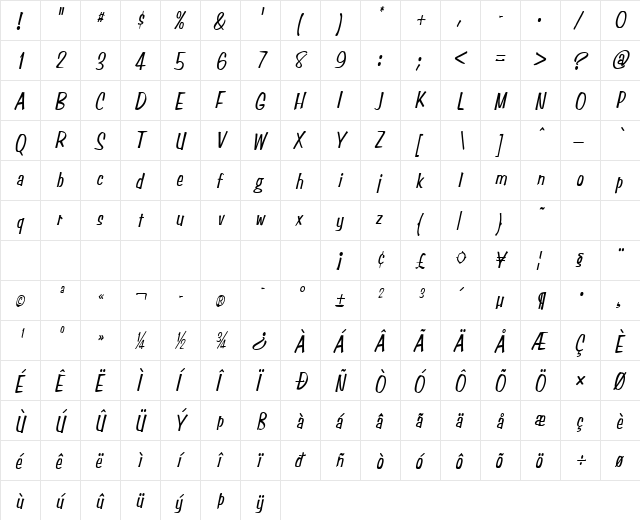
Simpson-Condensed Italic
Design Context for Simpson-Condensed Typeface
Simpson-Condensed is a composed and adaptable typeface that performs quietly and consistently across a wide range of design contexts. The dynamic lean of this cut emphasises speed and emphasis in any layout. Its narrow stance lets it pack a punch even in space-constrained designs.
Pro Tip: Use Simpson-Condensed for emphasis, pull quotes, and subheadings where its slanted energy can add rhythm to the layout.